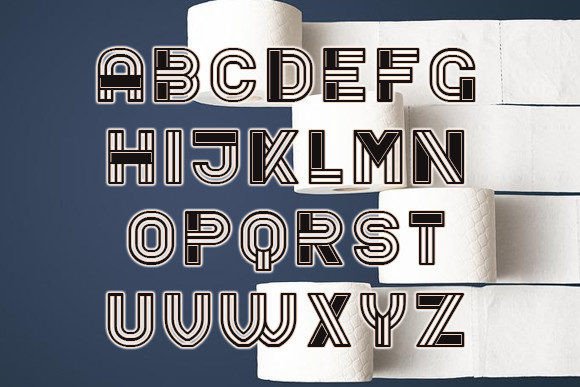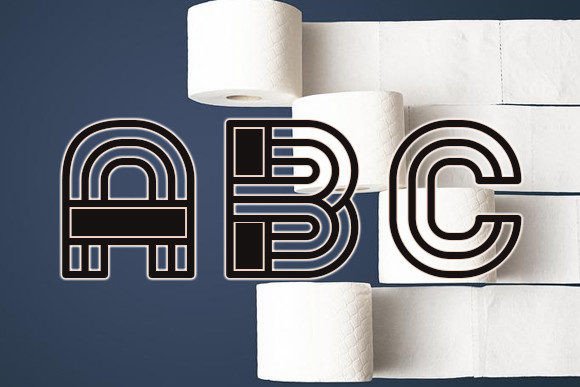
Bathroom Font: Elevate Your Designs with a Fun, Cool, Geometric Display Font
Are you tired of using the same old fonts in your designs? Look no further than the Bathroom Font, a fun, cool, and geometric display font that’s sure to elevate your projects. With its bold and assertive appearance, this font is perfect for designers and crafters who want to add a touch of personality to their work.
What is Bathroom Font?
Bathroom Font is a geometric display font that’s designed to make a statement. Its unique and modern design makes it perfect for a wide range of projects, from branding and advertising to packaging and signage. The font’s bold and assertive appearance ensures that your message will stand out, no matter what type of project you’re working on.
Key Features of Bathroom Font
- Geometric Design: Bathroom Font features a geometric design that’s both modern and stylish.
- Bold and Assertive: The font’s bold and assertive appearance makes it perfect for projects that need to make a statement.
- Fun and Cool: Bathroom Font is a fun and cool font that’s sure to add a touch of personality to your designs.
- Versatile: The font is versatile and can be used for a wide range of projects, from branding and advertising to packaging and signage.
Why Use Bathroom Font?
There are many reasons why you should consider using Bathroom Font in your designs. Here are just a few:
- Add Personality to Your Designs: Bathroom Font is a unique and stylish font that’s sure to add a touch of personality to your designs.
- Stand Out from the Crowd: The font’s bold and assertive appearance ensures that your message will stand out, no matter what type of project you’re working on.
- Perfect for Creative Projects: Bathroom Font is perfect for creative projects, such as branding, advertising, and packaging.
- Easy to Read: Despite its bold and assertive appearance, Bathroom Font is easy to read, making it perfect for use in a wide range of projects.
How to Use Bathroom Font
Using Bathroom Font is easy. Here are a few tips to get you started:
- Use it as a Display Font: Bathroom Font is perfect for use as a display font, where it can be used to add a touch of personality to your designs.
- Pair it with Other Fonts: Bathroom Font can be paired with other fonts to create a unique and stylish look.
- Experiment with Different Sizes: The font looks great in a variety of sizes, from large display sizes to smaller text sizes.
Design and Crafting Applications
Bathroom Font is perfect for a wide range of design and crafting applications, including:
- Branding and Advertising: The font’s bold and assertive appearance makes it perfect for use in branding and advertising projects.
- Packaging and Signage: Bathroom Font is perfect for use in packaging and signage projects, where it can be used to add a touch of personality to your designs.
- Graphic Design: The font is perfect for use in graphic design projects, such as brochures, flyers, and posters.
- Crafting and DIY Projects: Bathroom Font is also perfect for use in crafting and DIY projects, such as handmade cards and gift tags.
In conclusion, Bathroom Font is a fun, cool, and geometric display font that’s perfect for designers and crafters who want to add a touch of personality to their work. With its bold and assertive appearance, this font is sure to elevate your designs and make them stand out from the crowd. So why not give it a try and see the difference it can make?